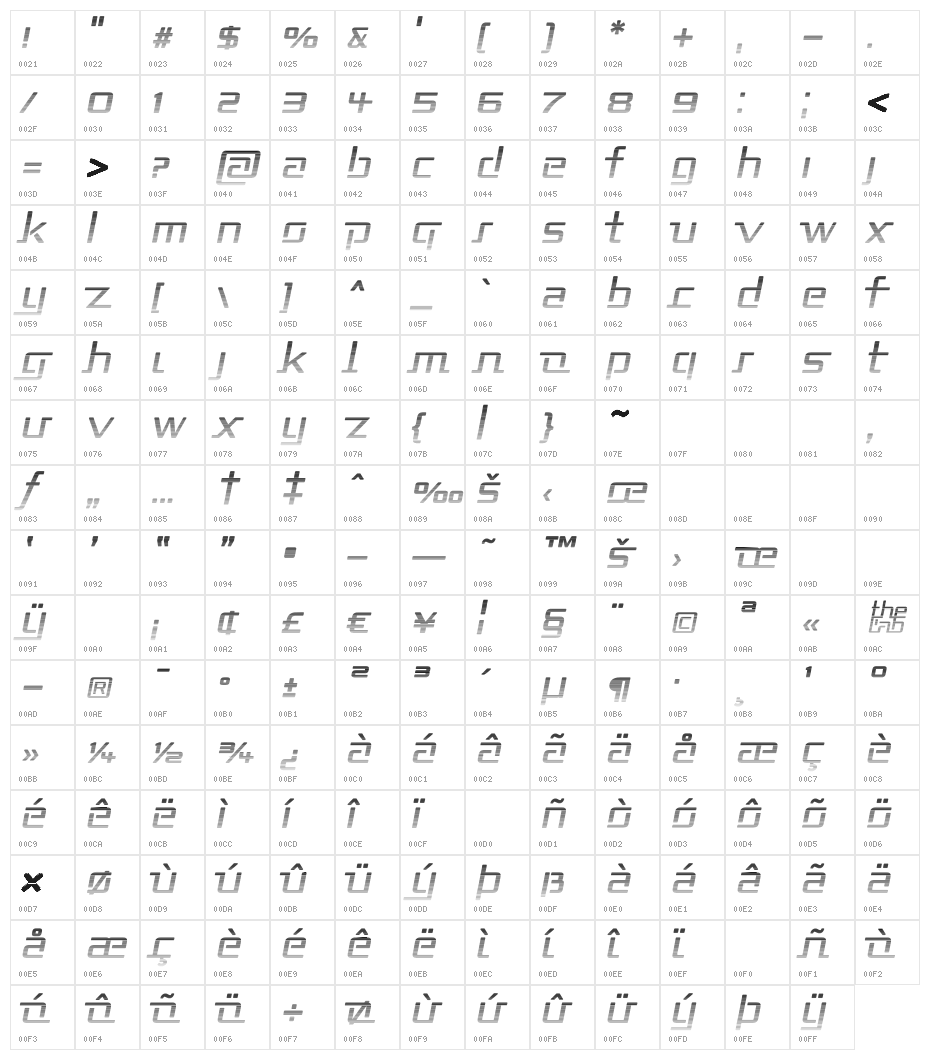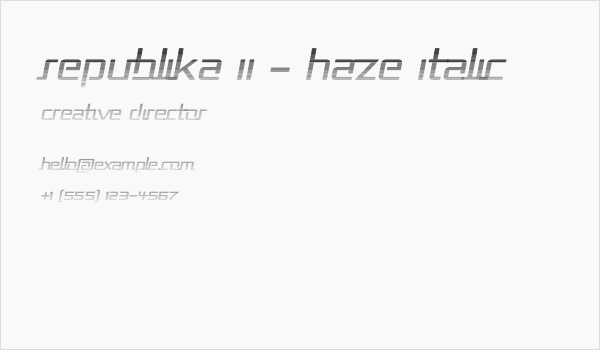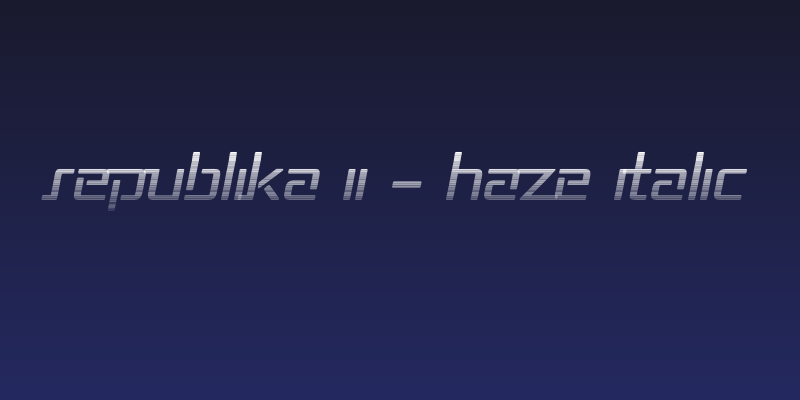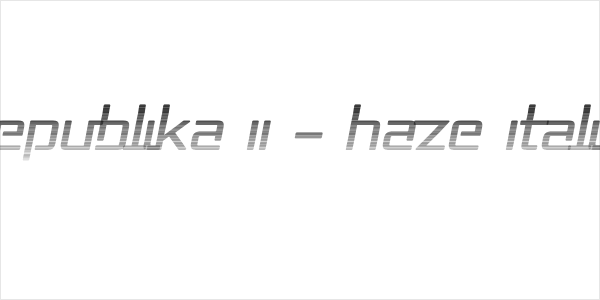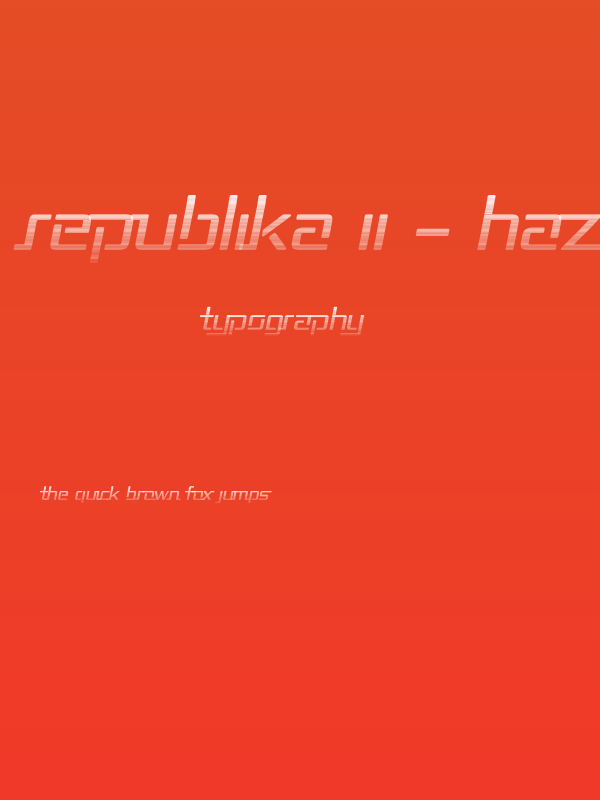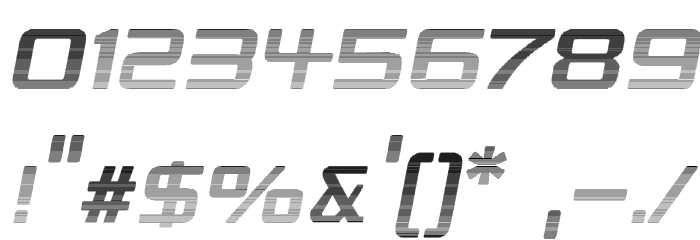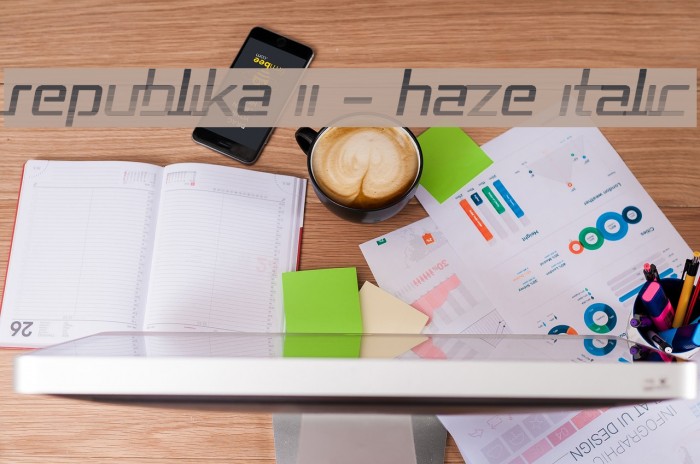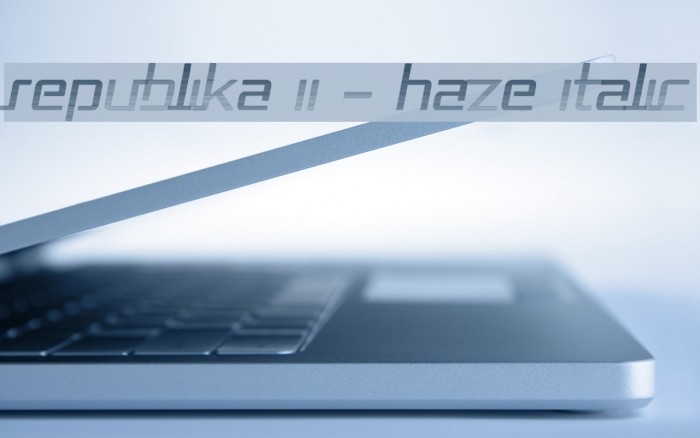
Republika II - Haze Italic Font
Republika II - Haze Italic Description
This font features a futuristic and dynamic style with a distinct italic slant. The characters are designed with a sleek, streamlined appearance, incorporating horizontal lines that create a sense of motion and speed. The font's geometric shapes and sharp angles give it a modern and edgy look, while the varying stroke thickness adds depth and dimension. The uppercase and lowercase letters maintain a consistent style, and the numerals and special characters are crafted to match the overall aesthetic. This font is ideal for projects that require a bold and contemporary feel.
| Overall Style | Futuristic |
| Proposed Projects | Ideal for technology branding, sci-fi themed designs, video game titles, and modern advertising. |